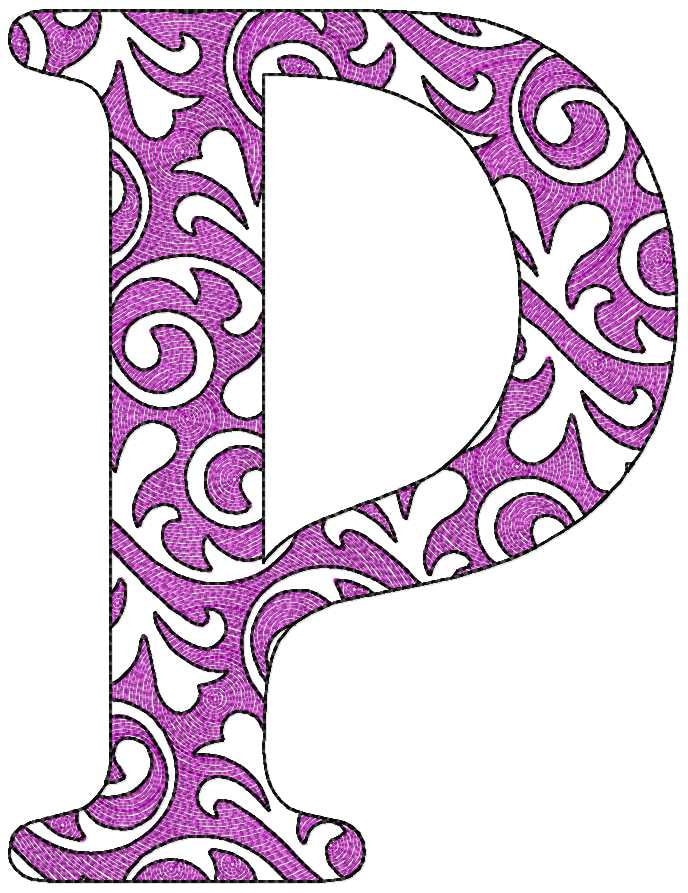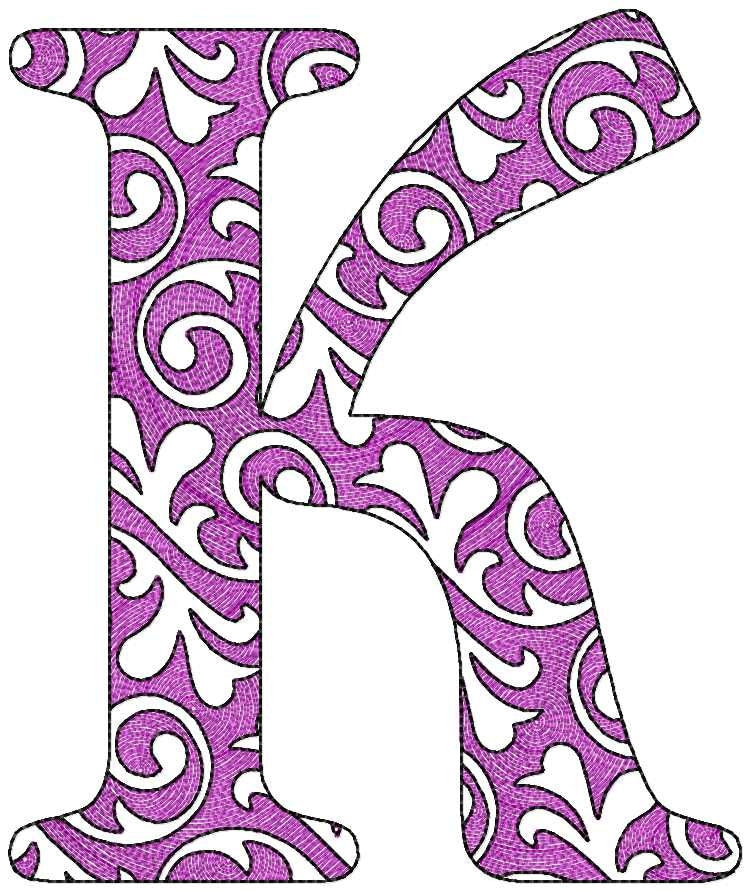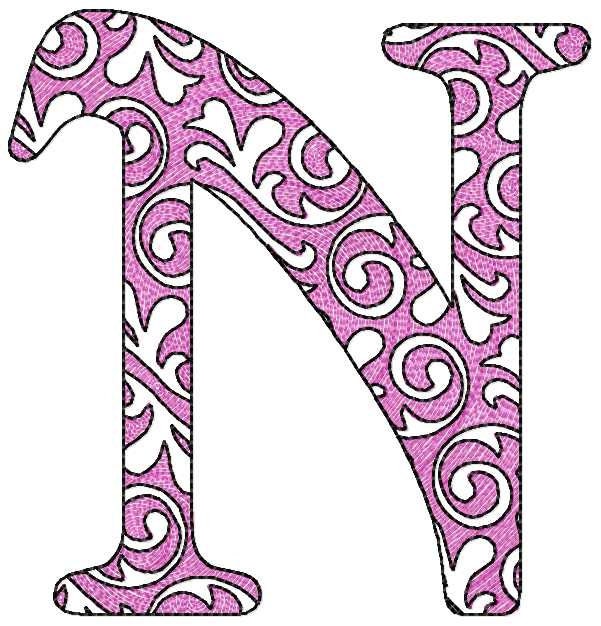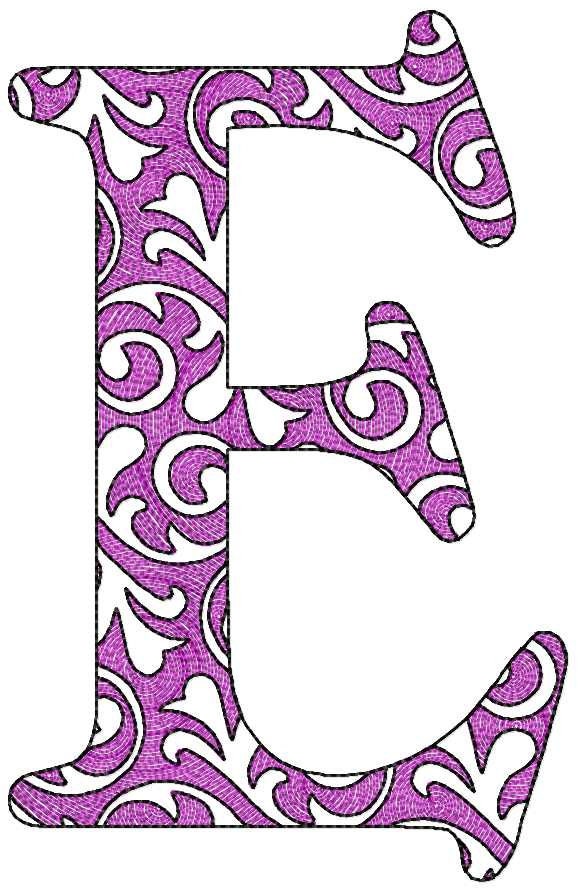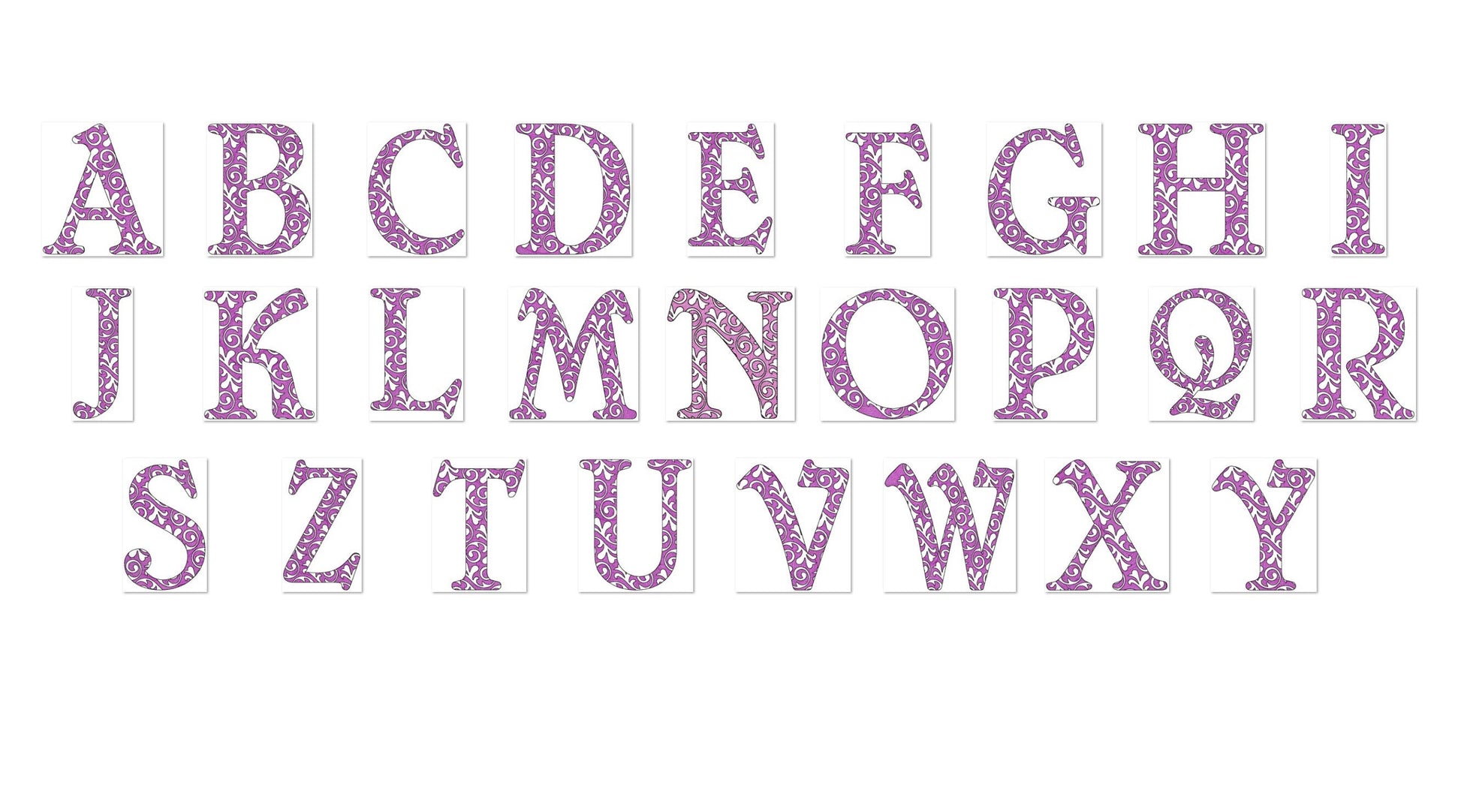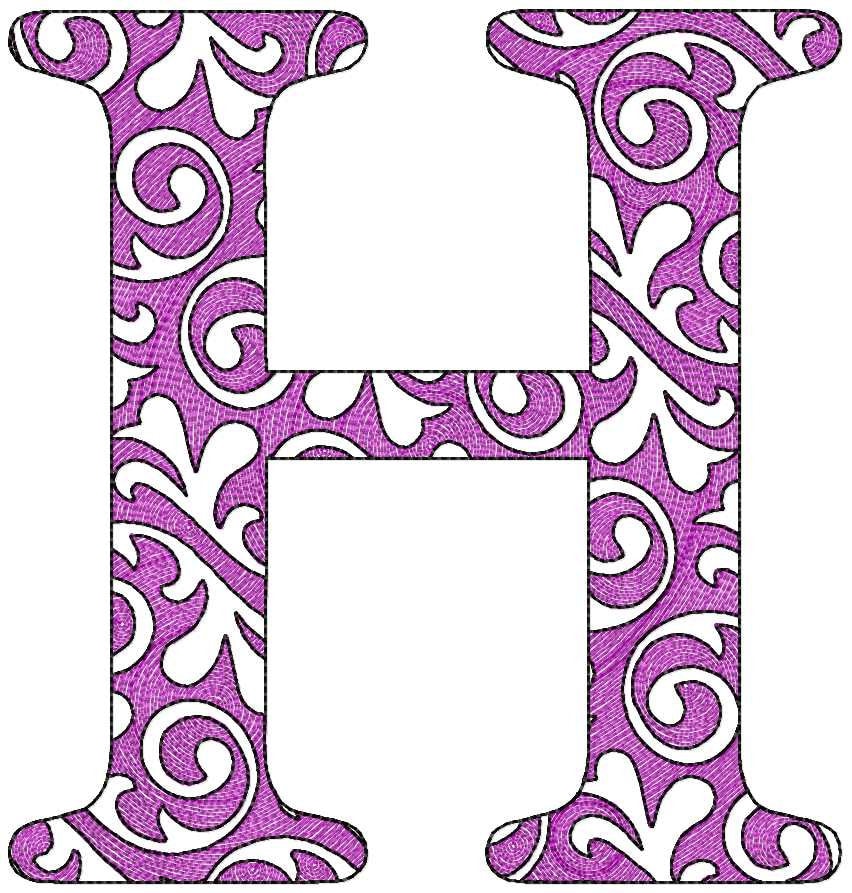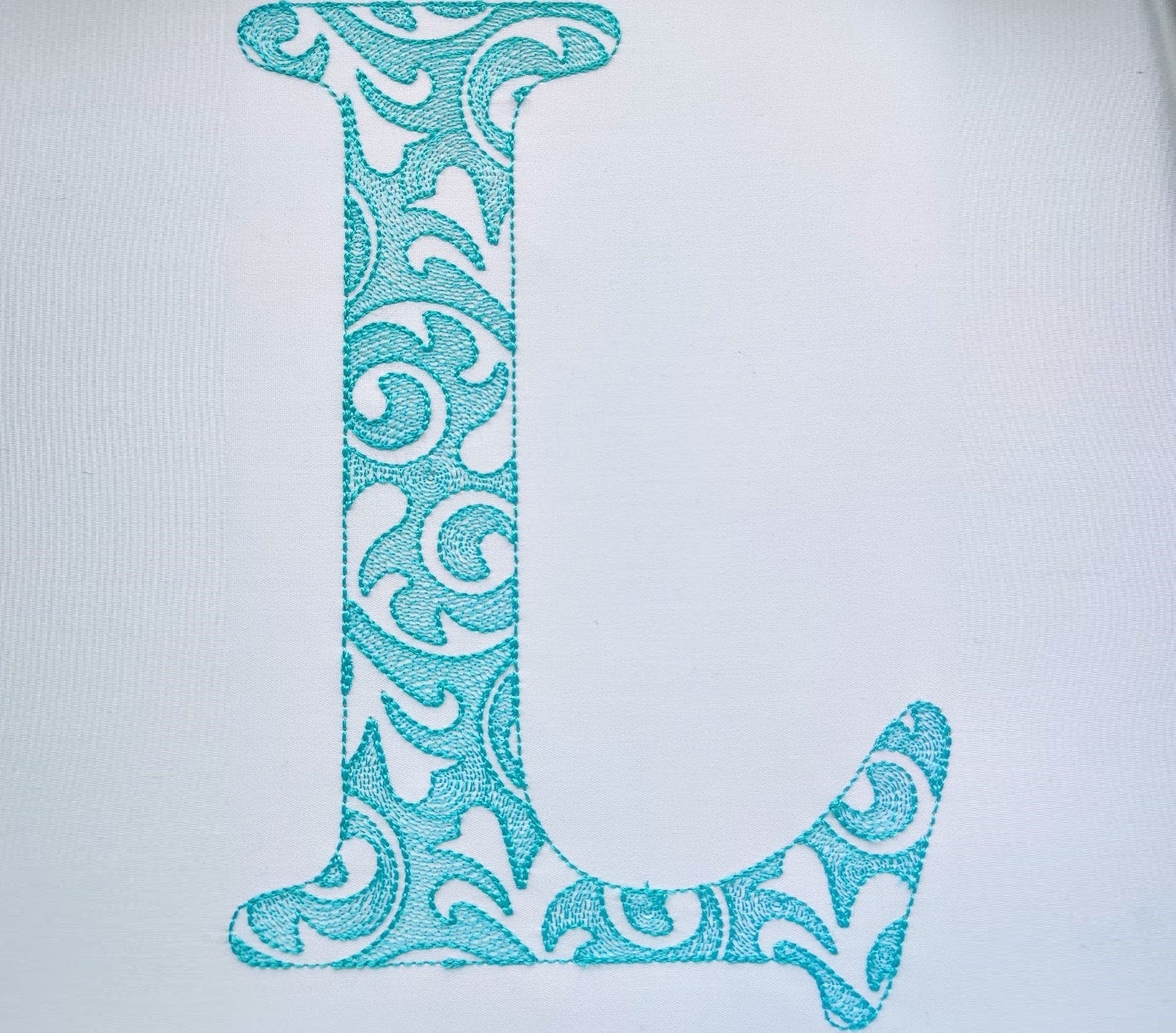
Frozen Curl Swirl Font
Uppercase letters A to Z in five sizes: 4, 5, 6, 7 and 8 inches. The curl and swirl pattern gives each letter a light, lace-like look.
- Curl swirl lace block font
- Uppercase letters A-Z
- 5 sizes, 4 to 8 in